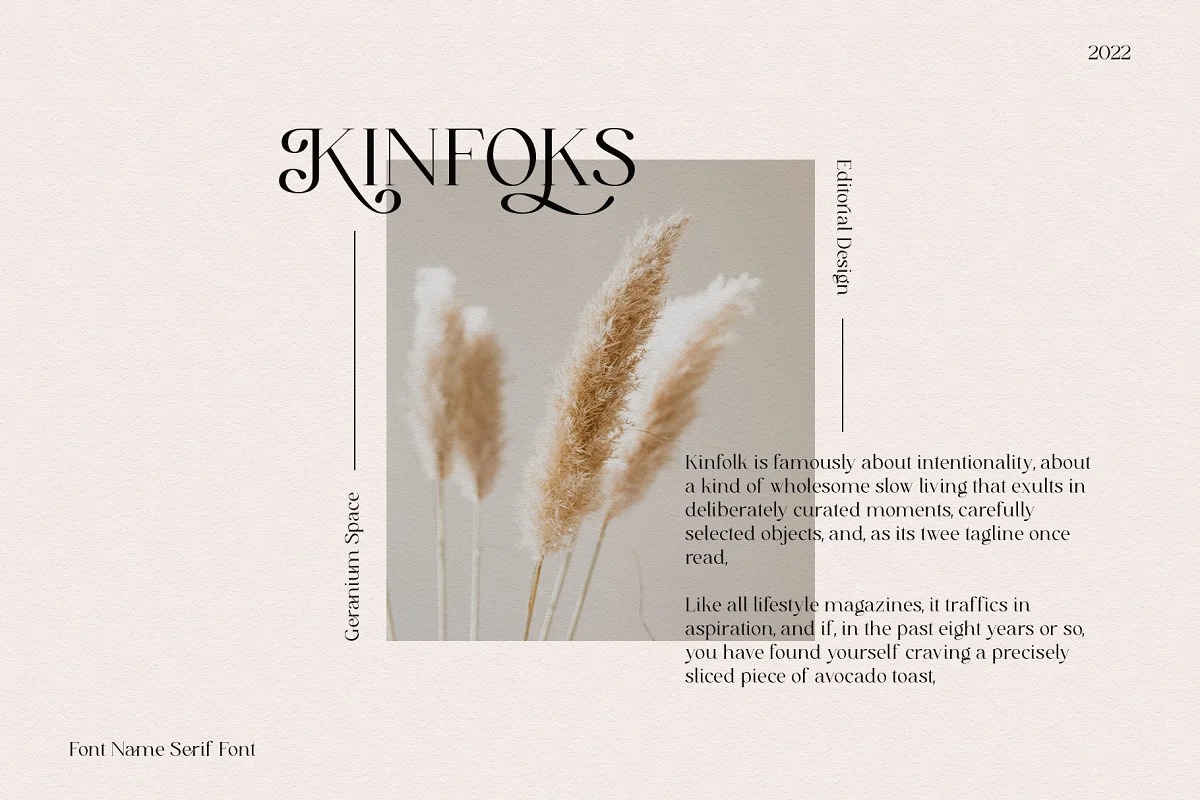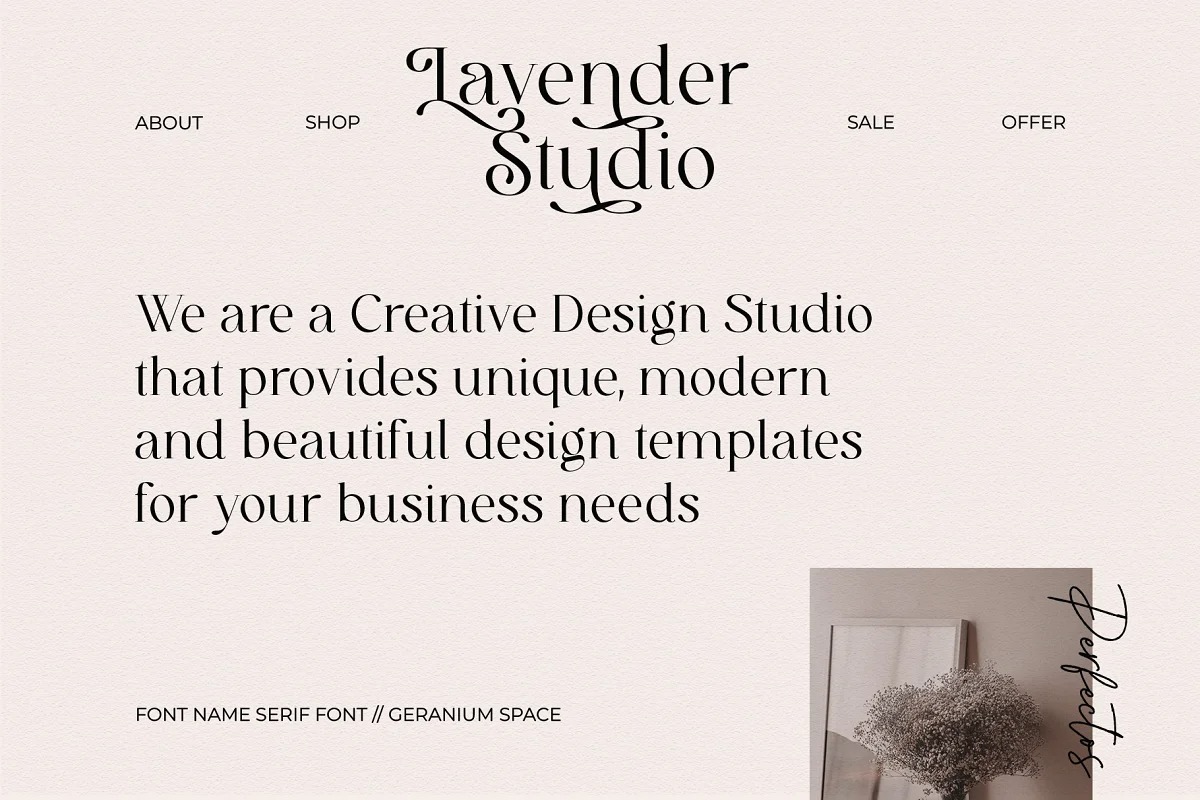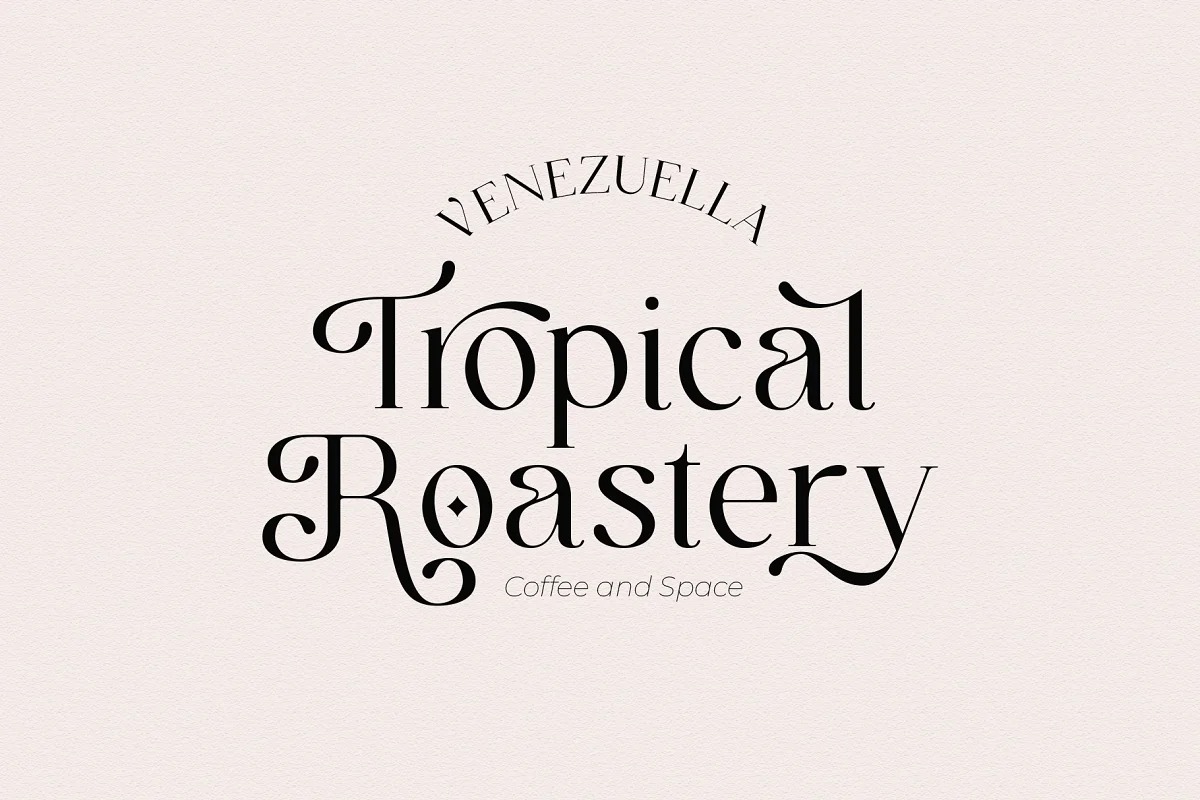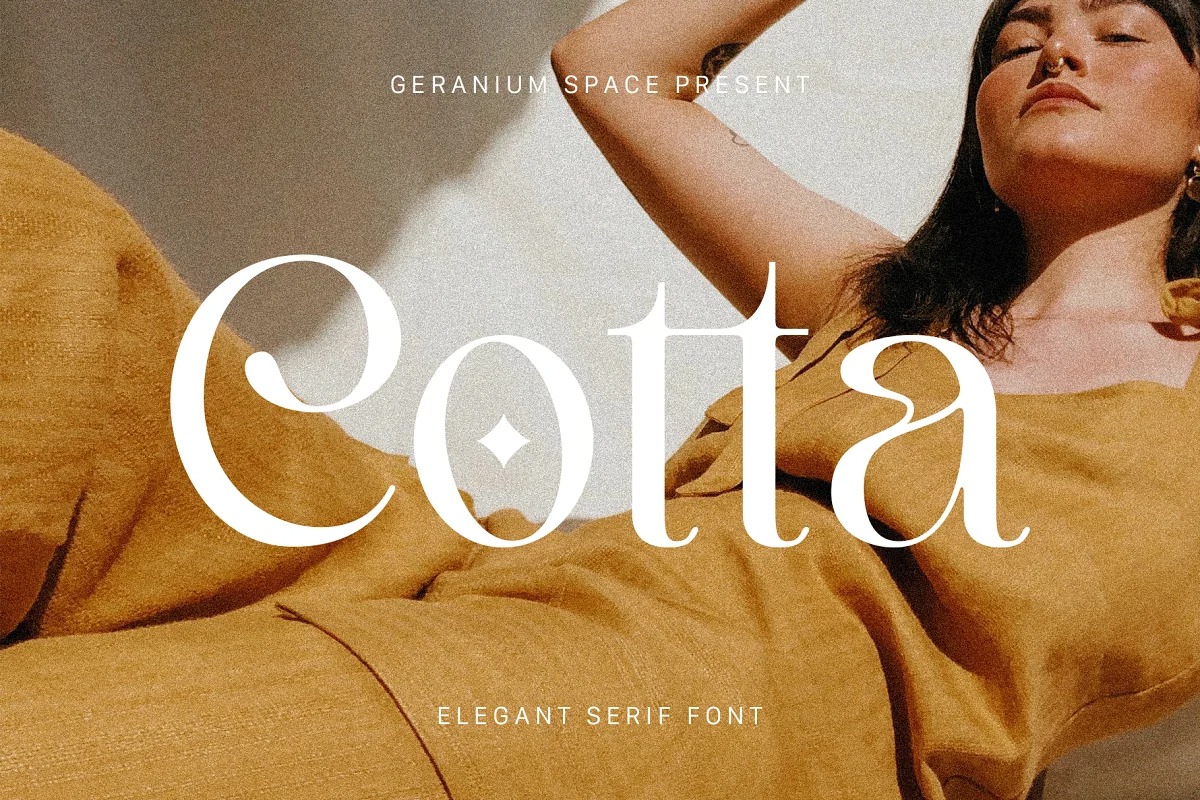
Cotta Serif Font
This font is designed with a modern concept that is simple and dynamic. It provides many alternative letters that you can adjust to your design needs, and some ligatures to add a feminine impression. The font is perfect for web design, branding, logos, invitations, magazines, and more.